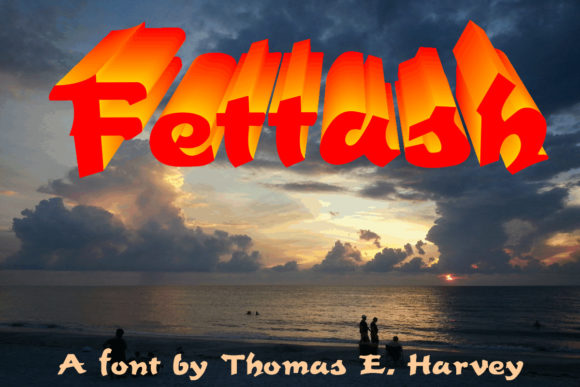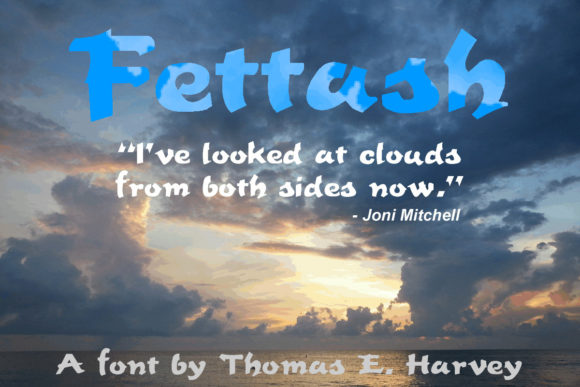
Fettash Font
About Fettash Font
Fettash is a unique font that will enhance any project. Use it for names, logos, other designs when you need a heavy typeface with a script-y feeling. It’s solid, yet casual – a difficult note to play on a font. It stands out from the crowd of script fonts with light, airy feelings – this one isn’t afraid to speak loudly in a script form.